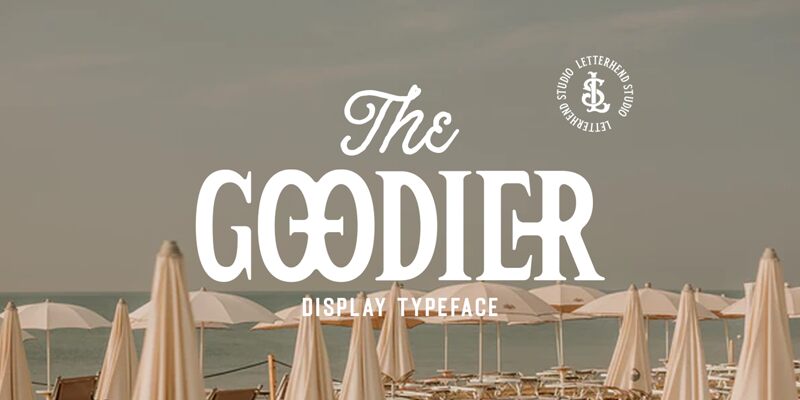
The Goodier, designed by Letterhend Studio, is a versatile semi-bold serif font. Its condensed width makes it perfect for creative projects that require a sleek and modern look. The Goodier's sharp edges and clean lines add sophistication to any design project, from logos and branding to editorial layouts and packaging. This font's unique style also makes it ideal for fashion brands, luxury products, and high-end marketing materials. The Goodier's condensed width allows for more text to fit in tight spaces without sacrificing legibility or style. Take your designs to the next level with the bold elegance of The Goodier.